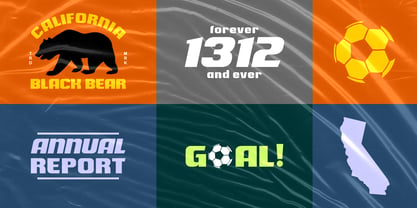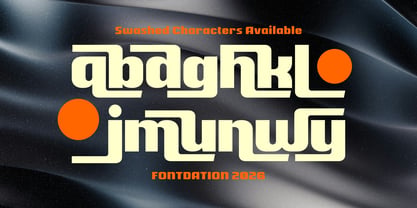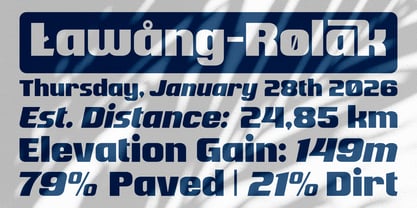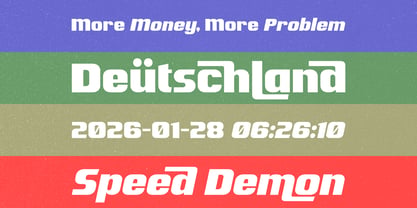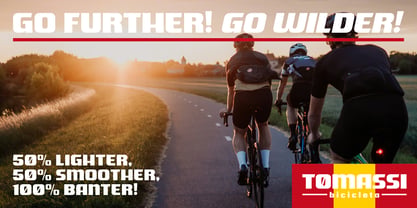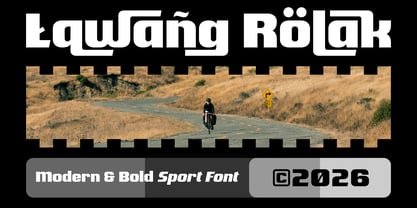
Lawang Rolak
The Lawang Rolak Font Family was designed by Fahrizal Tawakkal and published by Fontdation. Lawang Rolak contains 2 styles and family package options. More about this family
Lawang Rolak is our new sport font release. Mouse-crafted with bold and clean characteristics and agressive personality, this font will give you an instant fast and dynamic feel to your designs. This font is packed with standard uppercase, lowercase, numerals, punctuations, some multilingual and alternate/swash characters that guaranteed will elevate your designing game. PS: Also available in slanted version/faux-italics too, so you can play more with the letter combinations. Suits best for any sport or racing themed designs, ex: logo/branding, headline, poster, editorial, etc. Will also great for other theme designs too.